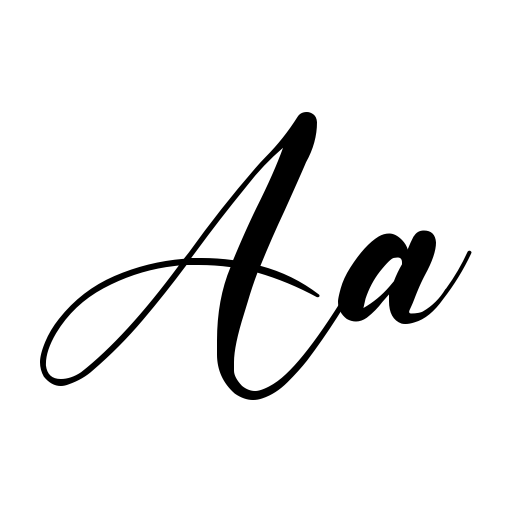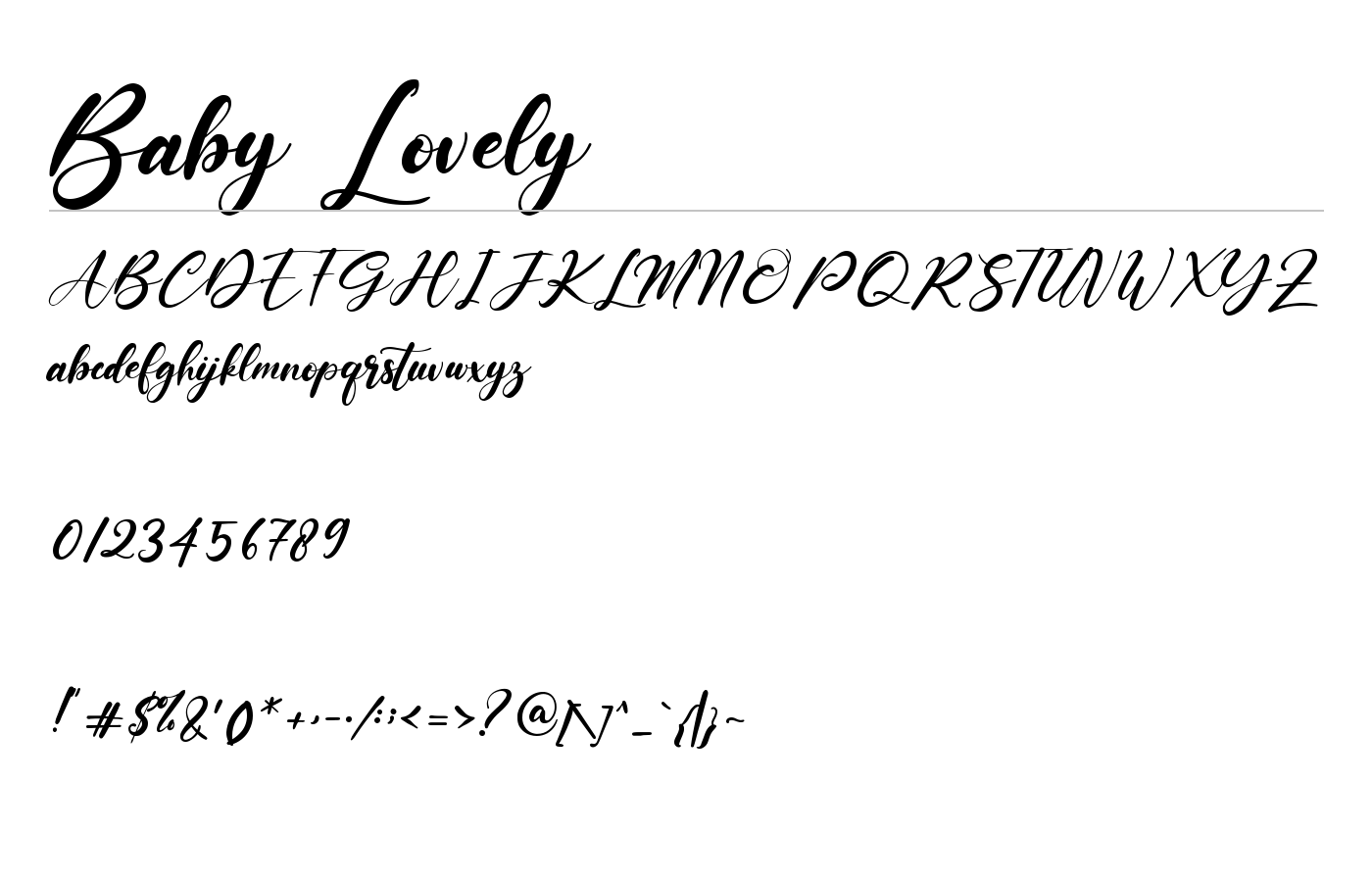
Baby Lovely Font is an elegant and playful script typeface featuring flowing, calligraphic letterforms with a mix of thick and thin strokes that create a charming, handwritten feel. Its smooth curves and refined details make it perfect for invitations, branding, and designs that seek a warm, personable, and sophisticated touch. This font is ideal for adding a stylish, creative flair to projects needing a delicate yet confident voice.
Baby Lovely Font
About Baby Lovely Font